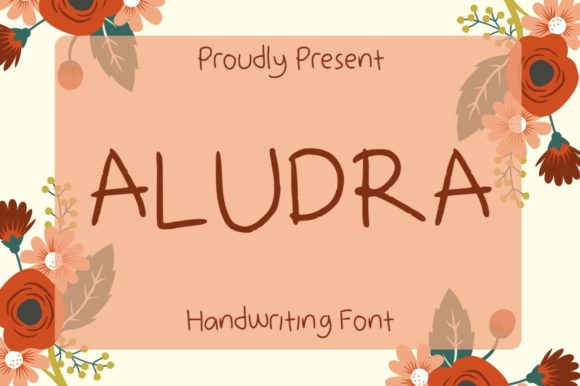
Welcome to the enchanting realm of Aludra, a script font family that exudes elegance and personality. Experience the beauty of handwritten letters that dance across your designs, adding a touch of warmth and sophistication.
With its gentle curves and flowing lines, Aludra captures the essence of love and romance. It's the perfect choice for creating heartfelt messages, wedding invitations, and other special occasions. Whether you're a designer, crafter, or simply someone who appreciates the art of typography, Aludra is sure to captivate your imagination.
Indulge in the versatility of Aludra, a font that seamlessly blends classic and contemporary styles. Its delicate strokes and charming characters add a touch of whimsy to any project, making it ideal for branding, logos, social media graphics, and more. Unleash your creativity and let Aludra elevate your designs to new heights.
Immerse yourself in the world of Aludra, where simplicity meets sophistication. Experience the joy of using a font that effortlessly enhances your projects, transforming them into works of art. Discover the beauty of Aludra today and let your designs shine!